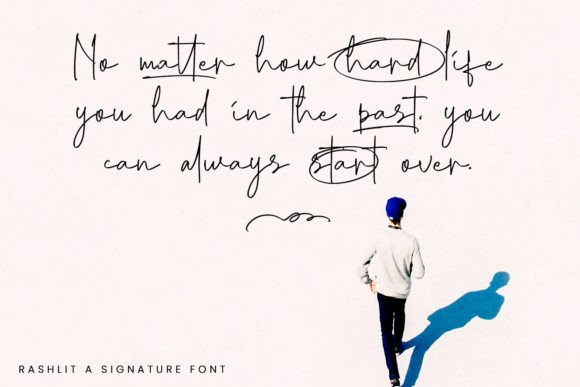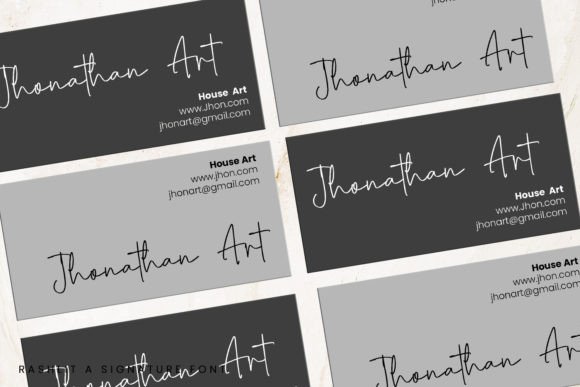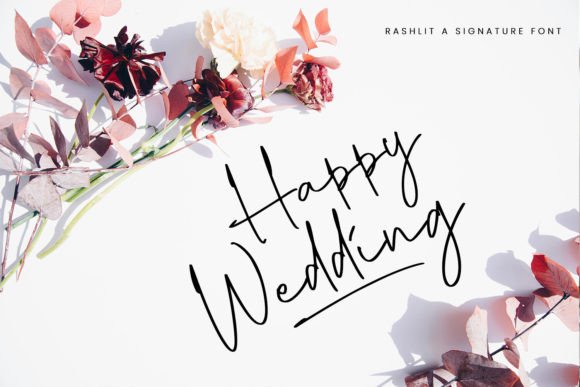
Introduction to Raslhit Font
Raslhit font is a stylish calligraphy signature that has a varied baseline, fine lines, and classic and elegant touches.
Can be used for various purposes Such as title, signature, logo, wedding invitation, t-shirt, letterhead, nameplate, label, news, poster, badge etc.
Key Features of Raslhit Font